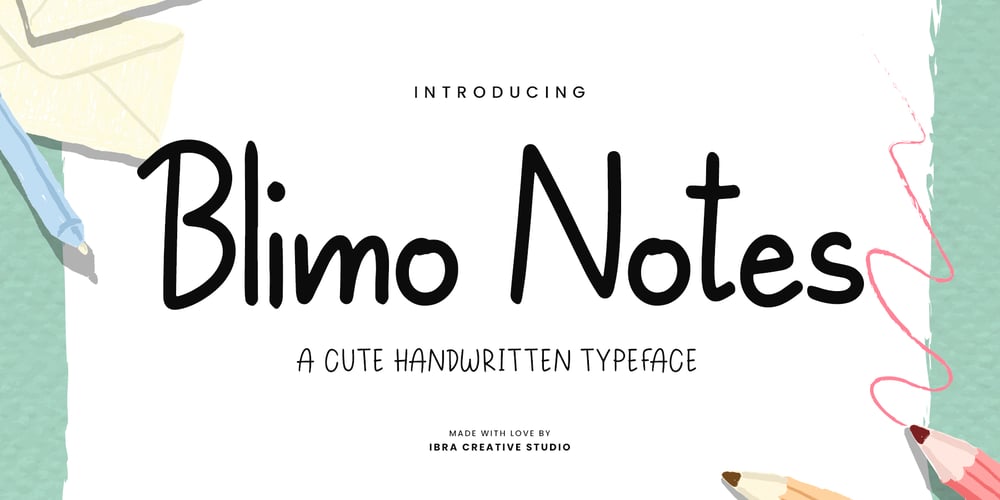
Blimo Notes Font Family was designed by Roisatul Azizah and published by IbraCreative. Blimo Notes contains 1 styles and family package options. Blimo Notes – A Cute Handwritten TypefaceBlimo Notes, a cute handwritten typeface, radiates an endearing charm with its whimsical strokes and playful demeanor. Each letter in Blimo Notes is meticulously crafted to evoke the warmth and authenticity of handwritten notes passed between friends. The adorably uneven lines and delightful curves give the typeface a unique character that is both inviting and friendly. Blimo Notes seamlessly captures the essence of innocence and joy, making it a perfect choice for designs that seek to convey a sense of lightheartedness. Whether used in greeting cards, invitations, or personal messages, Blimo Notes adds a touch of sweetness to every written word, transforming text into a visual hug that resonates with simplicity and affection.Blimo is perfect for branding projects, logo, wedding designs, social media posts, advertisements, product packaging, product designs, label, photography, watermark, invitation, stationery, game, fashion and any projects.Fonts include multilingual support for; Afrikaans, Albanian, Czech, Danish, Dutch, English, Estonian, Finnish, French, German, Hungarian, Italian, Latvian, Lithuanian, Norwegian, Polish, Portuguese, Slovak, Slovenian, Spanish, Swedish.